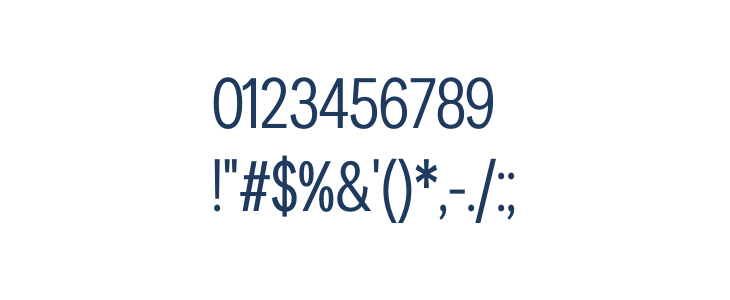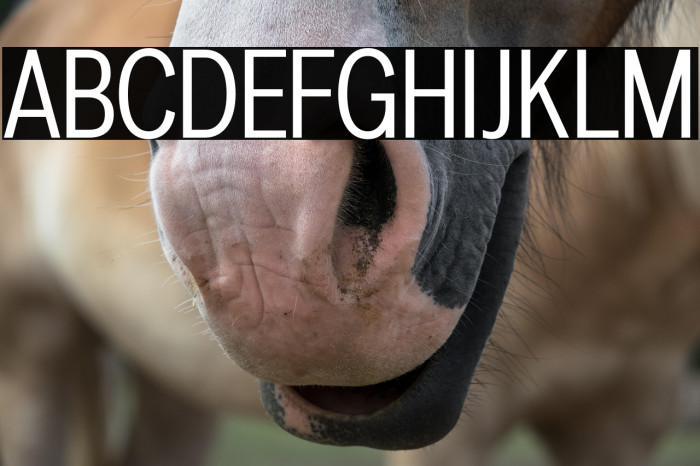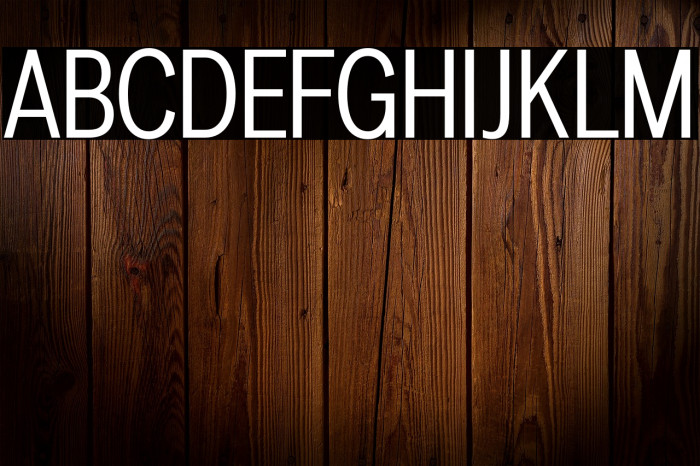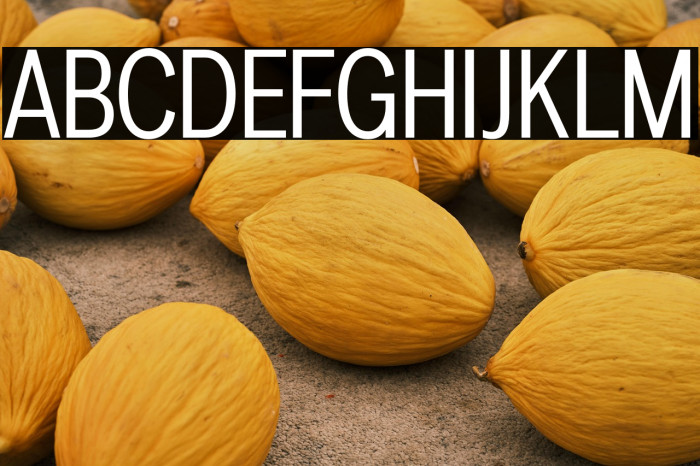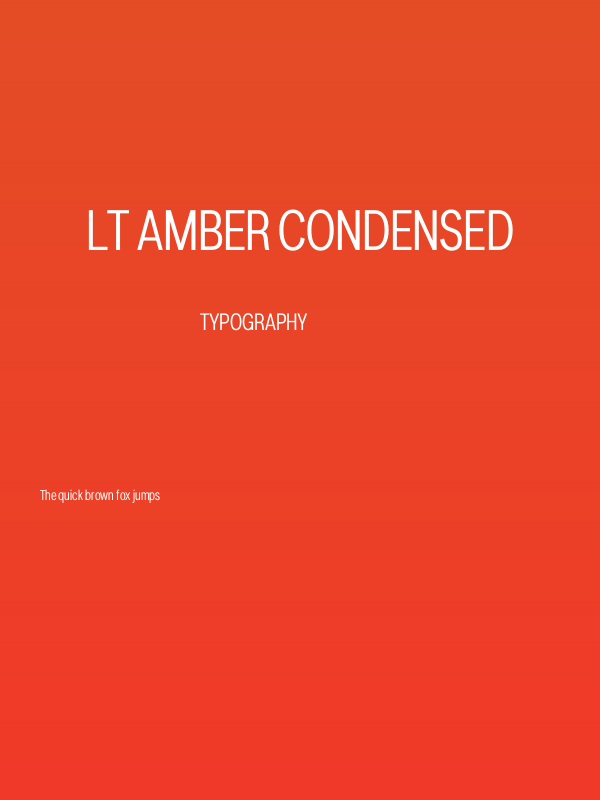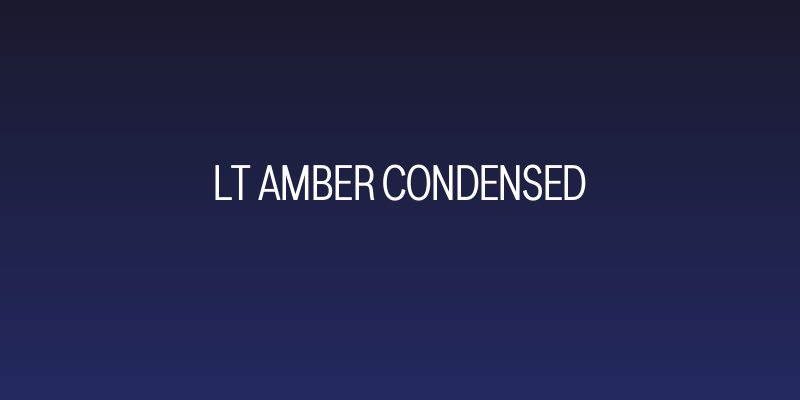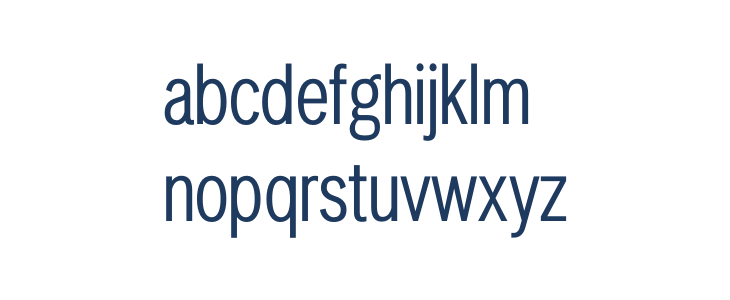
LT Amber Condensed Font
LT Amber Condensed Description
This font features a clean, modern sans-serif style with a condensed width, making it ideal for space-saving applications. The characters are uniform in stroke width, providing a consistent and professional appearance. The uppercase letters are tall and commanding, while the lowercase letters maintain a balanced and approachable look. The numerals are clear and easy to read, and the special characters are well-defined, ensuring versatility across various design needs. This font's simplicity and clarity make it suitable for both digital and print media.
| Proposed Projects | Ideal for branding, advertising, editorial design, and web interfaces where space is limited. |